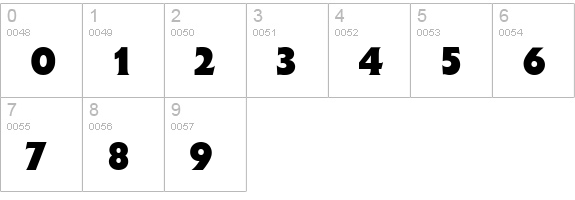
Flange (R) Bold is a strong, high-contrast variant in the Flange typeface family \xE2\x80\x94 well suited to headlines, attention-grabbing titles, and strong calls-to-action.
Flange (R) Bold font is a striking and bold typeface that commands attention with its strong and impactful presence. Perfect for making a statement and adding emphasis to your designs, this font exudes confidence and style. Its sharp angles and bold strokes give it a modern and edgy look that is sure to make your text stand out. Best of all, Flange (R) Bold font is absolutely free to download at FontsMarket.com, making it accessible to all designers and creatives looking to elevate their projects. Whether you're working on a poster, logo, or website design, this font will add a touch of boldness and flair to your work. Don't miss out on the opportunity to enhance your designs with Flange (R) Bold font - download it today and get creative!